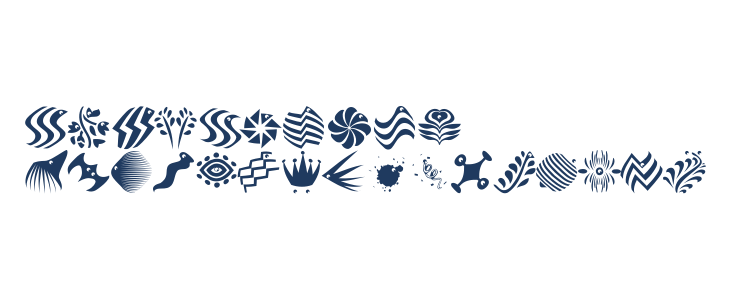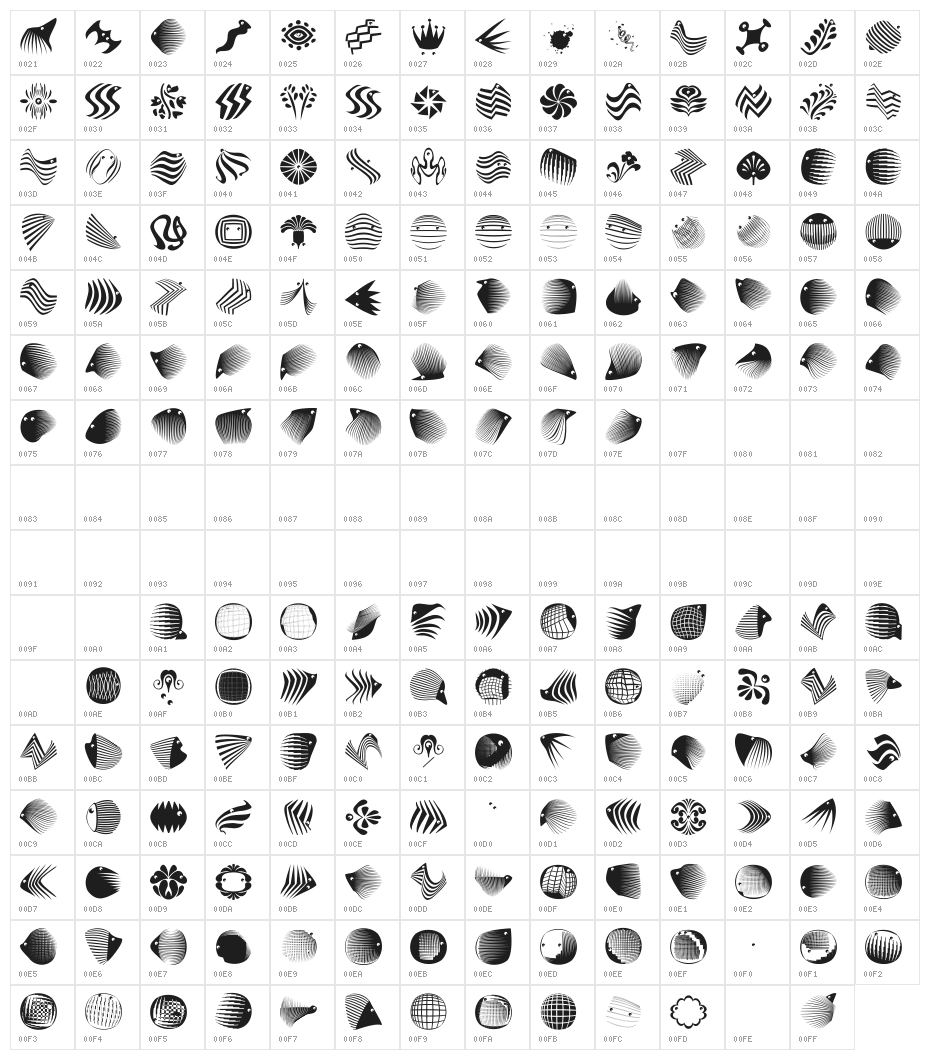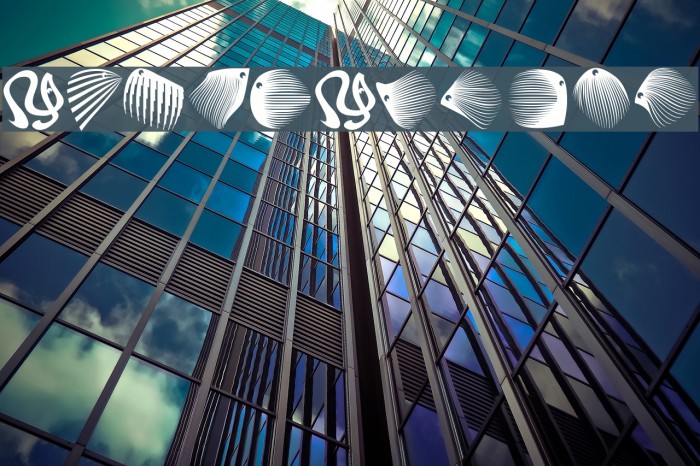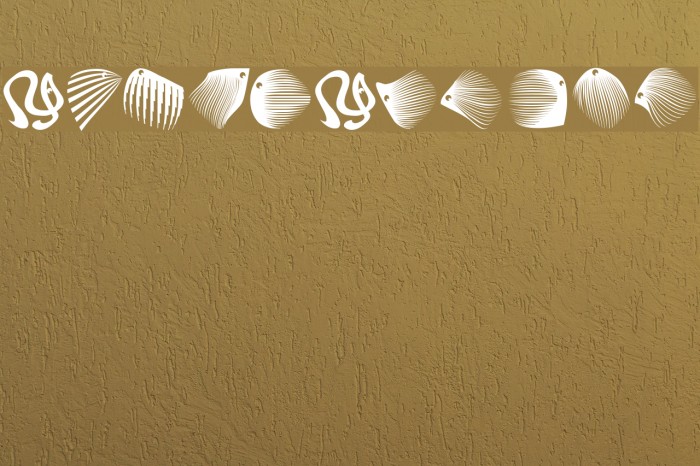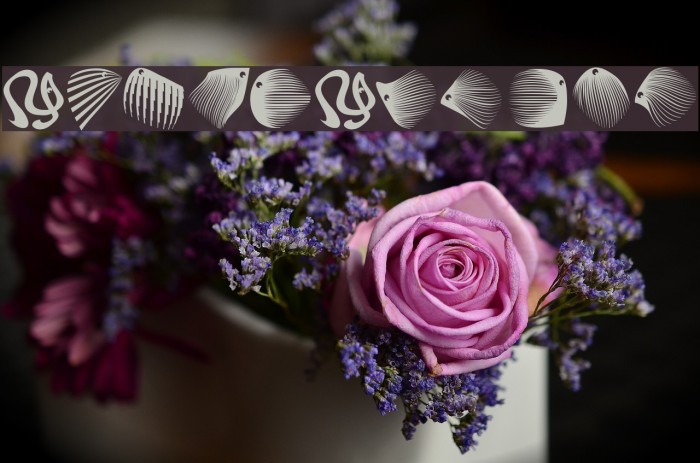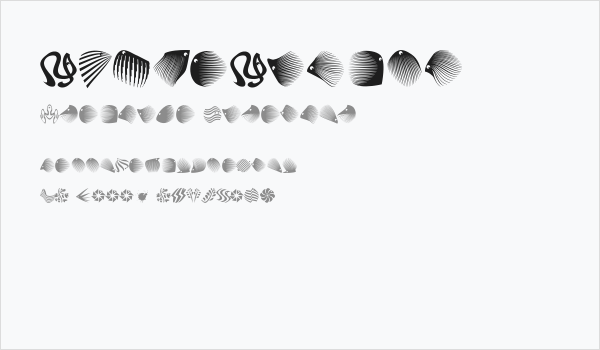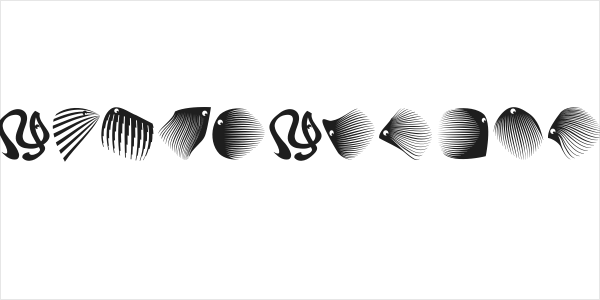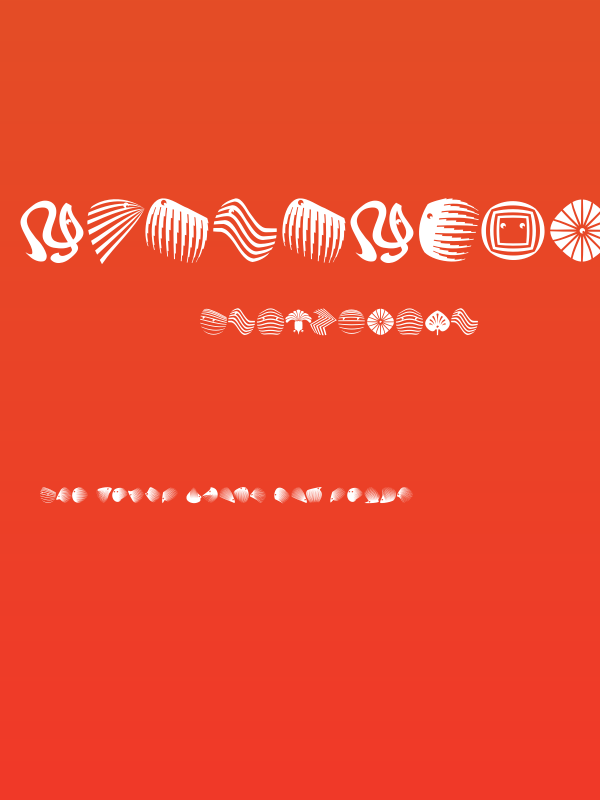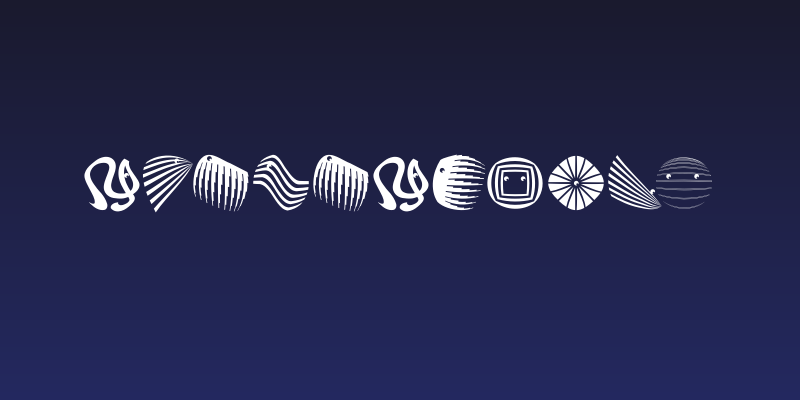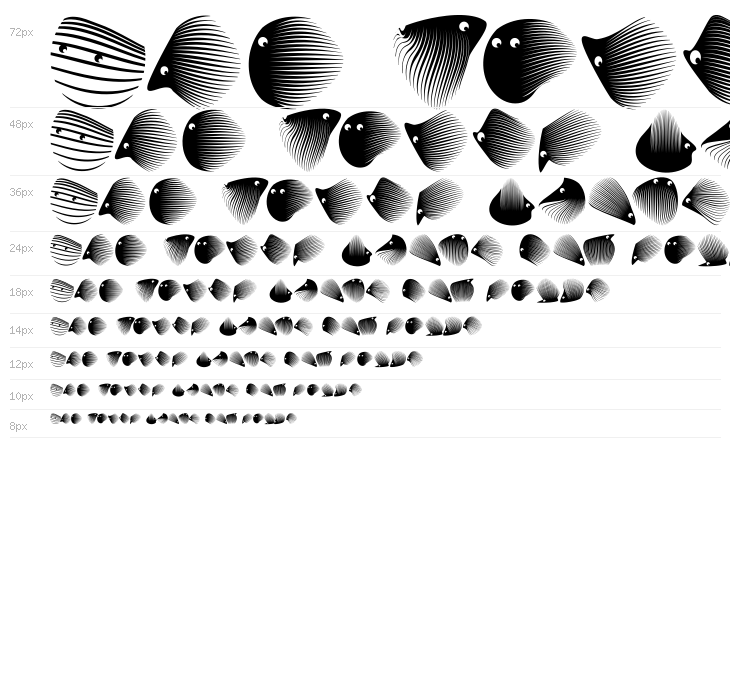
MKEyeMinals Font
MKEyeMinals Description
A highly decorative and abstract dingbat font featuring a variety of organic, geometric, and nature-inspired shapes, including stylized fish, leaves, shells, waves, and other whimsical motifs. The glyphs are bold, mostly filled with black, and often use line gradients or stripes to create visual interest and depth.
Overall StyleDecorative, Abstract, Modern
Use CaseLogos, Posters, Decorative elements, Branding, Patterns
Proposed ProjectsBranding, packaging, posters, textile patterns, digital stickers, creative illustrations, and decorative borders.